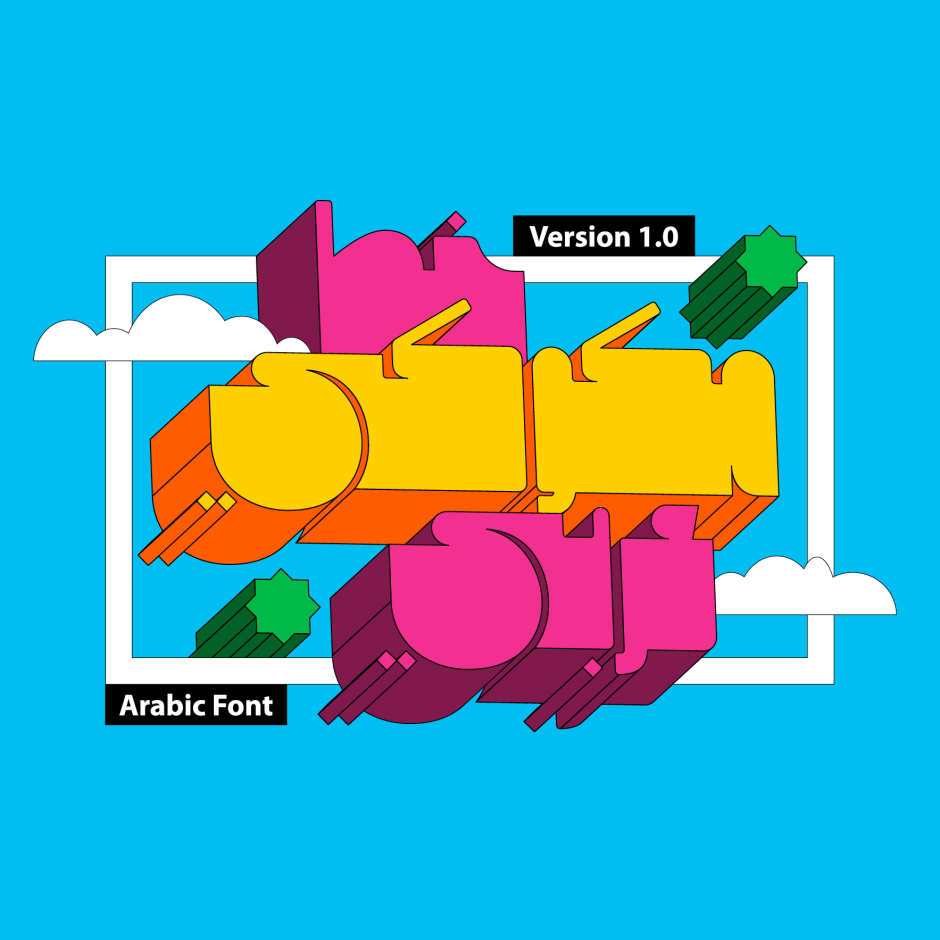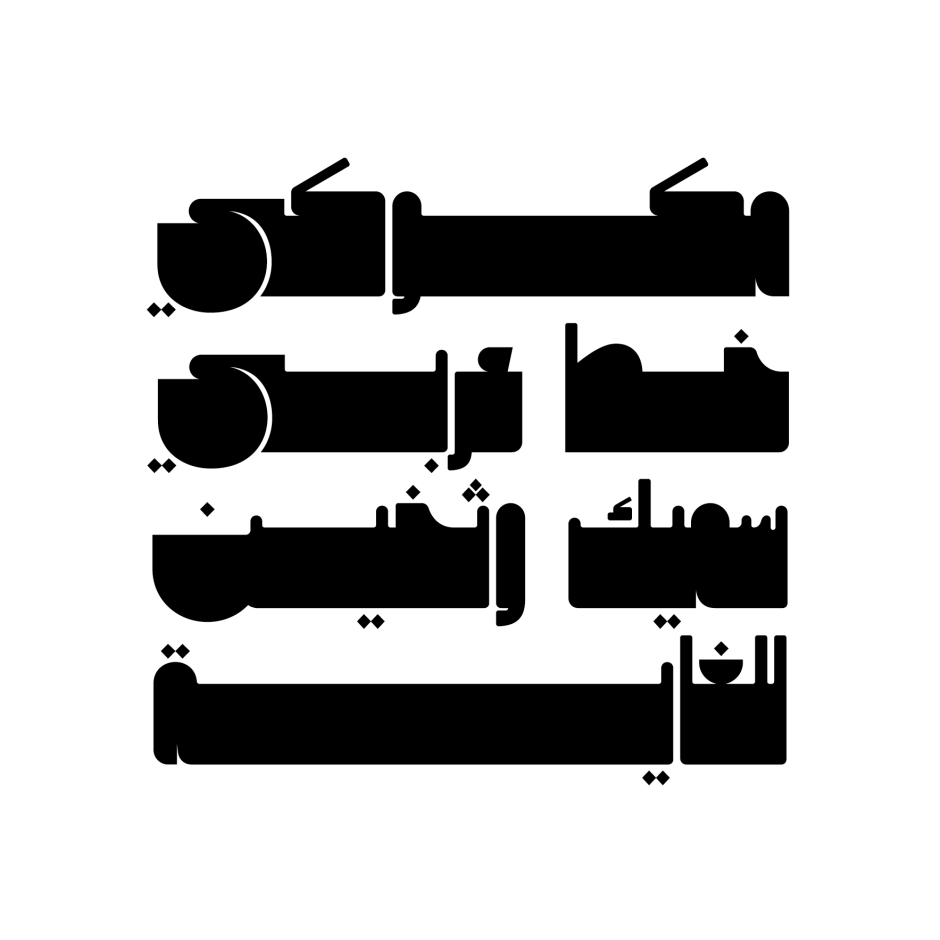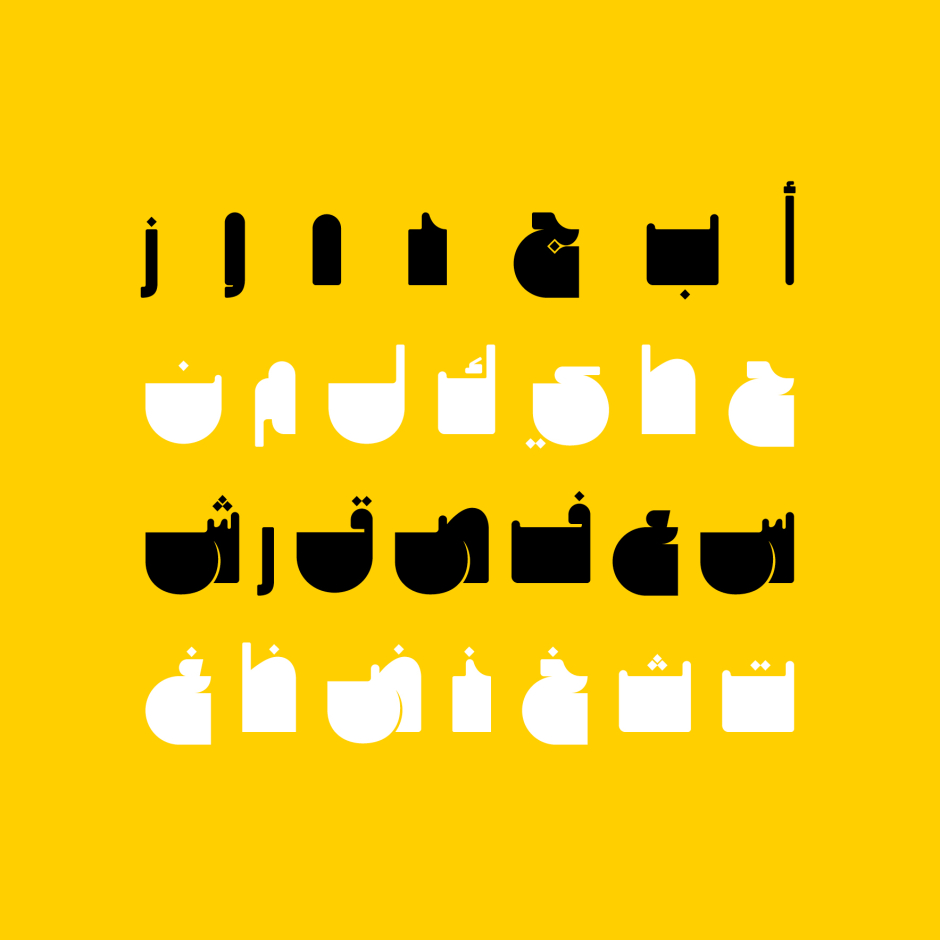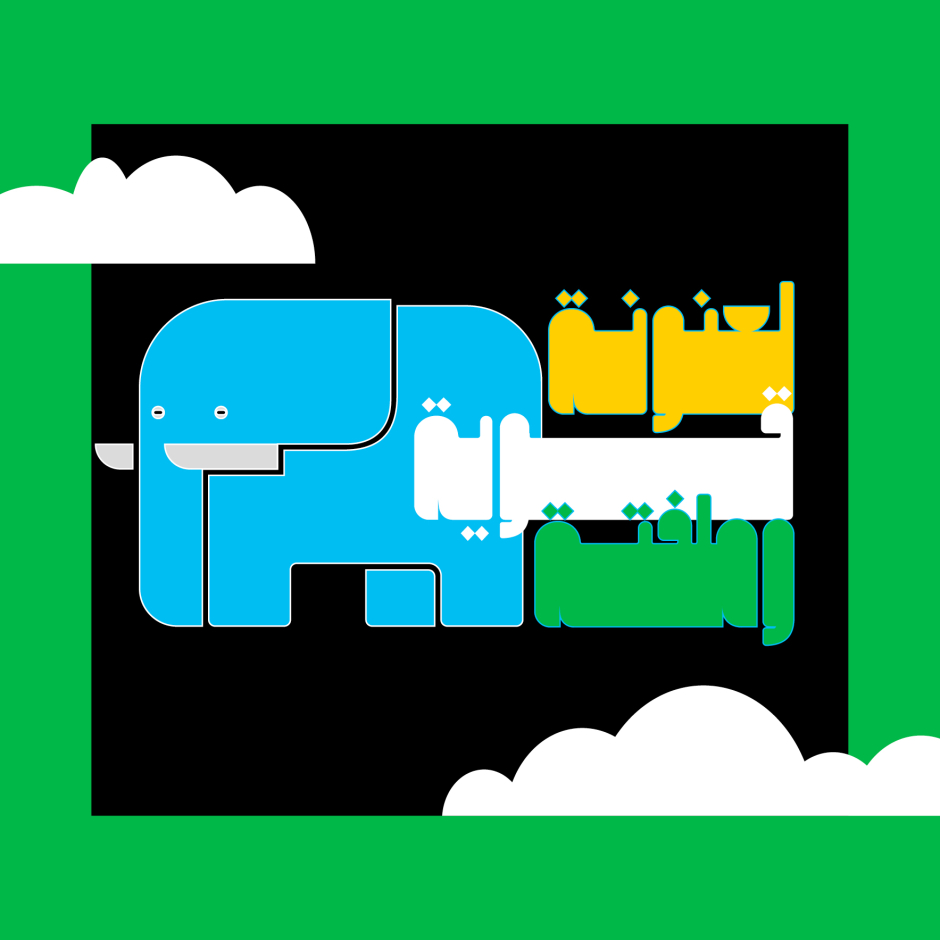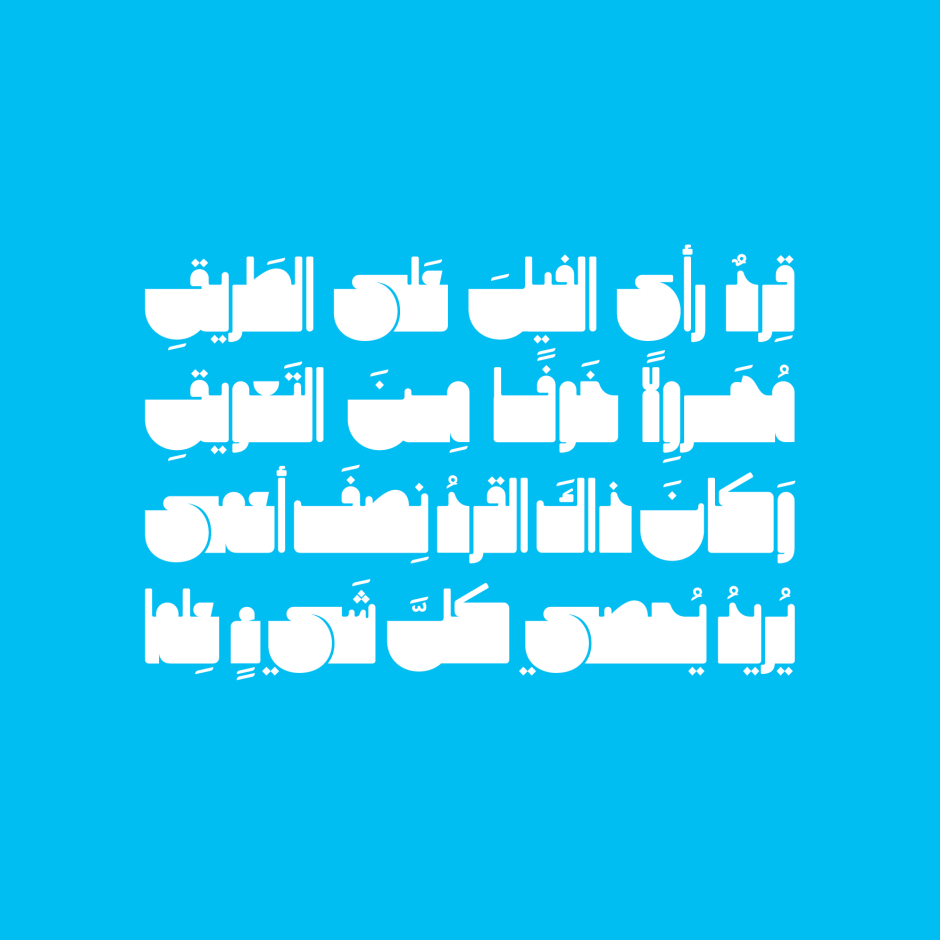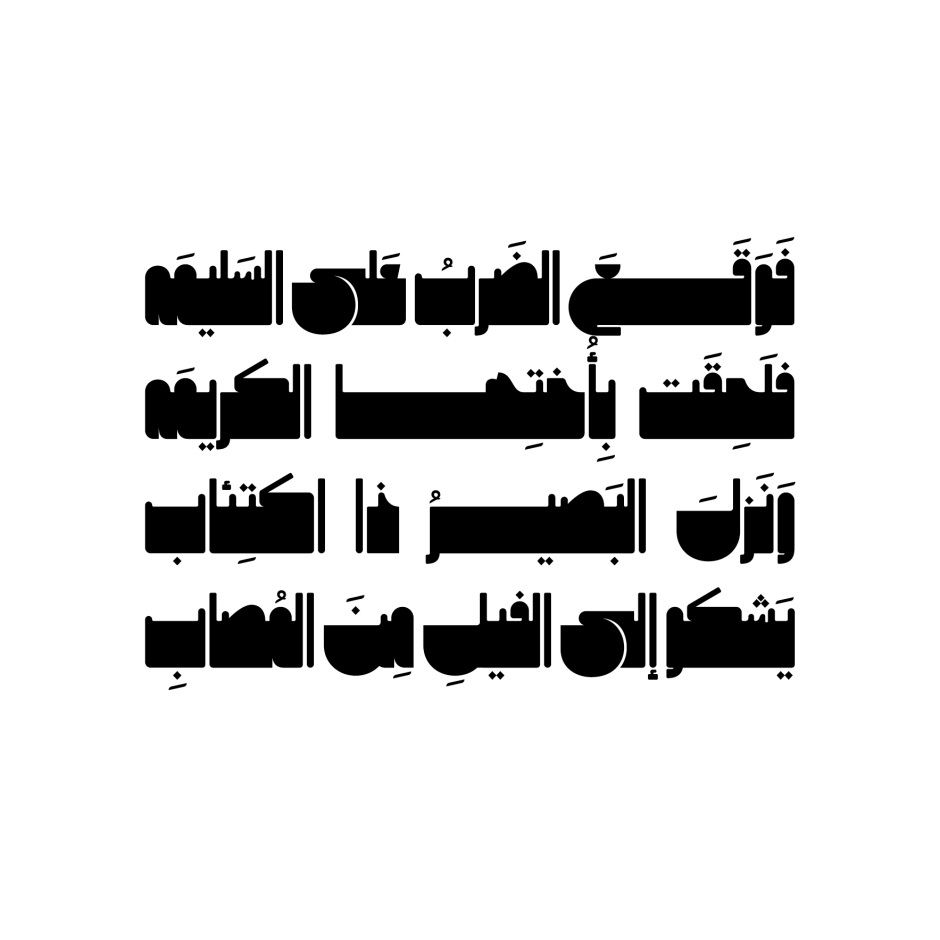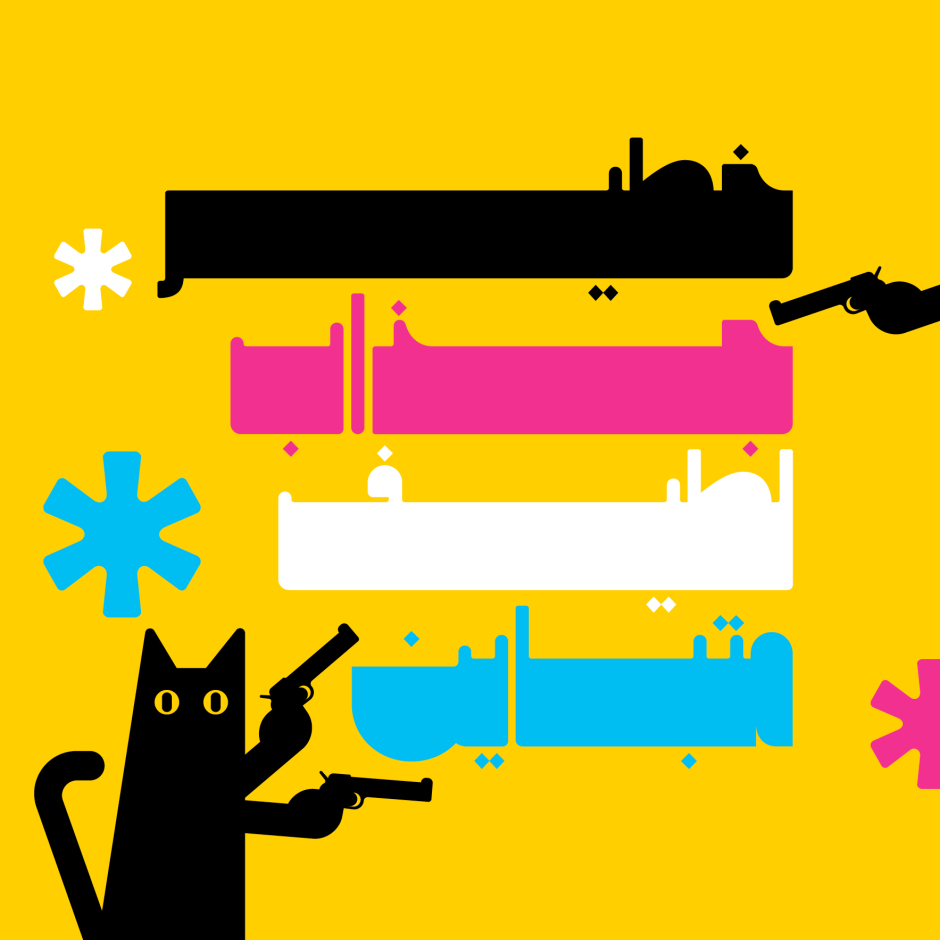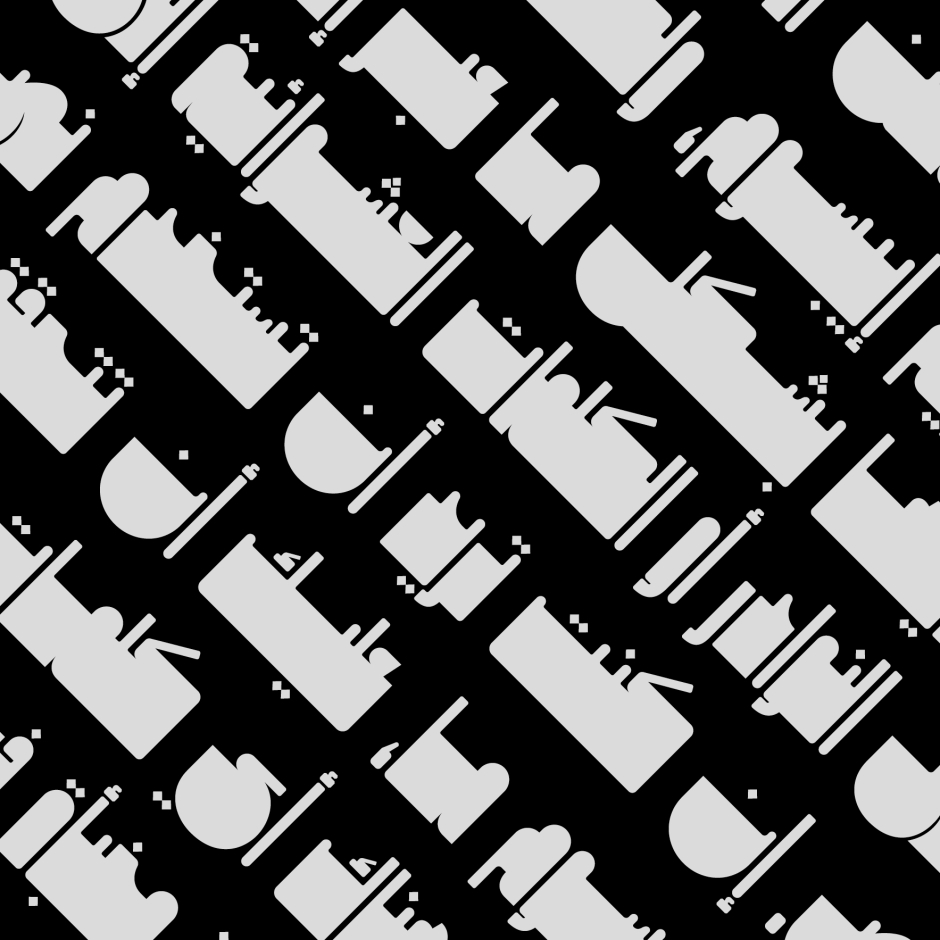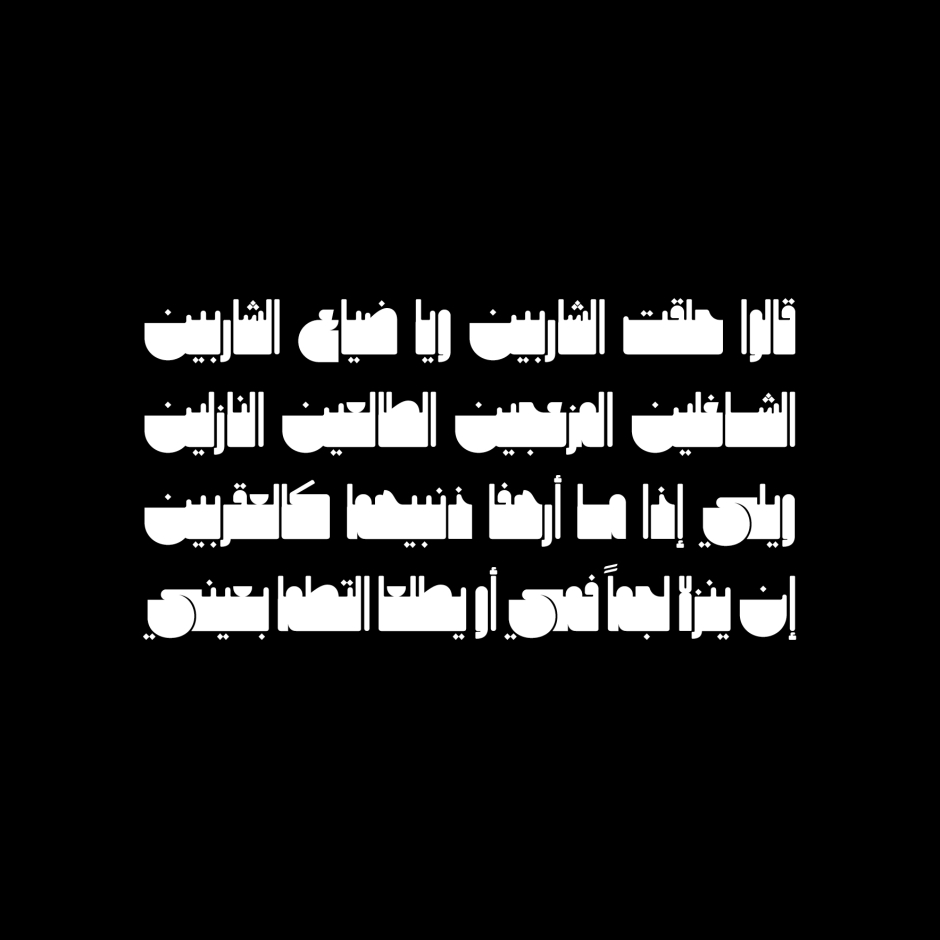
Makouky
Makouky is an Arabic display font that features extra heavy letterform design. The distinctive style of this font makes it suitable for catchy logotypes, advertising and typography. Makouky supports Windows, macOS and mobile applications.